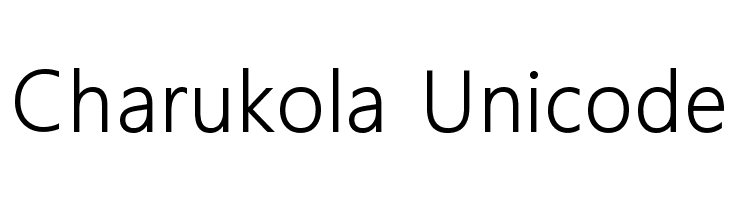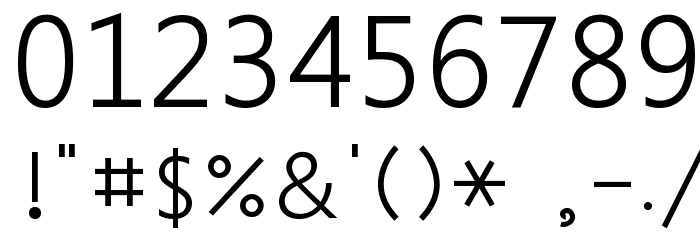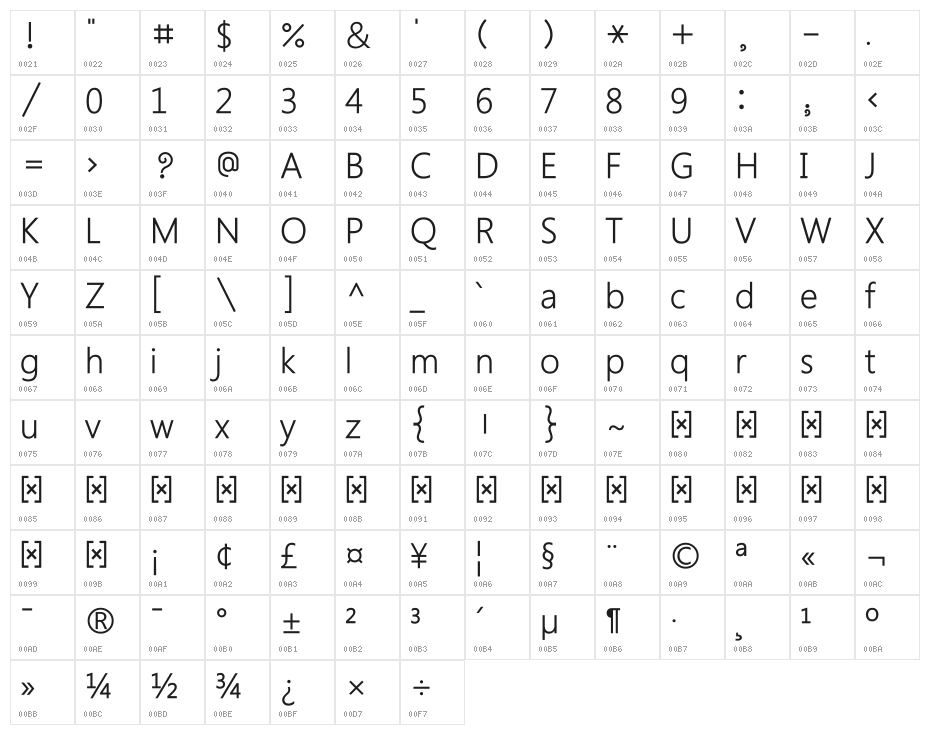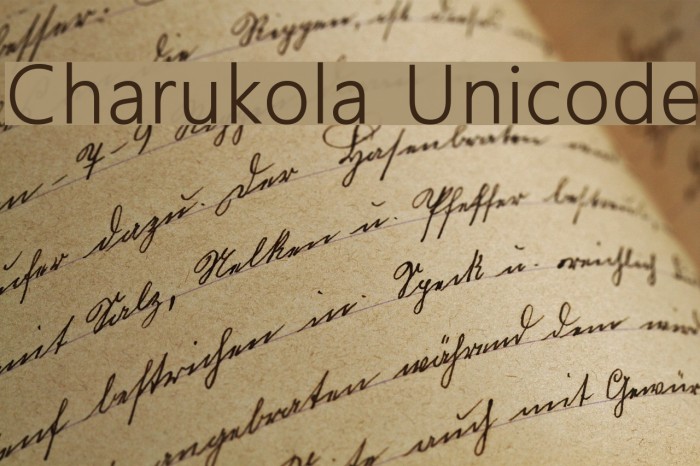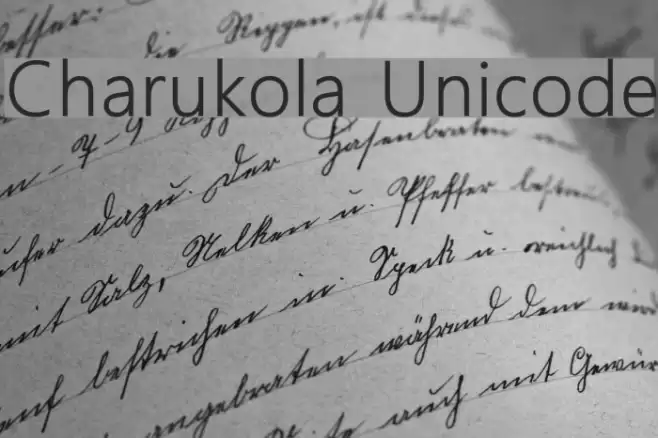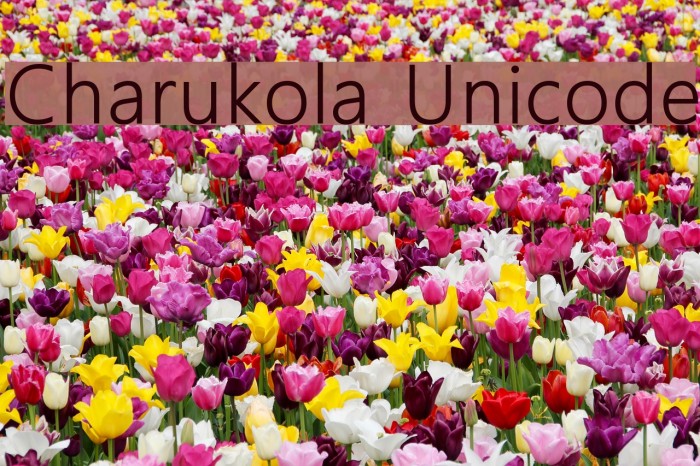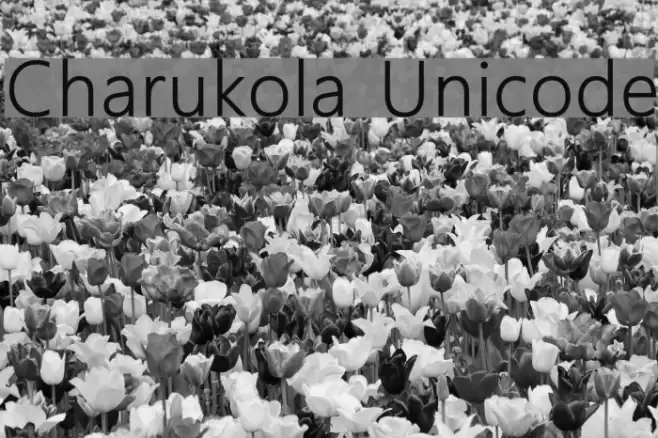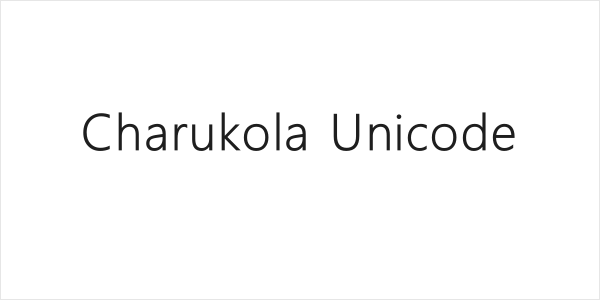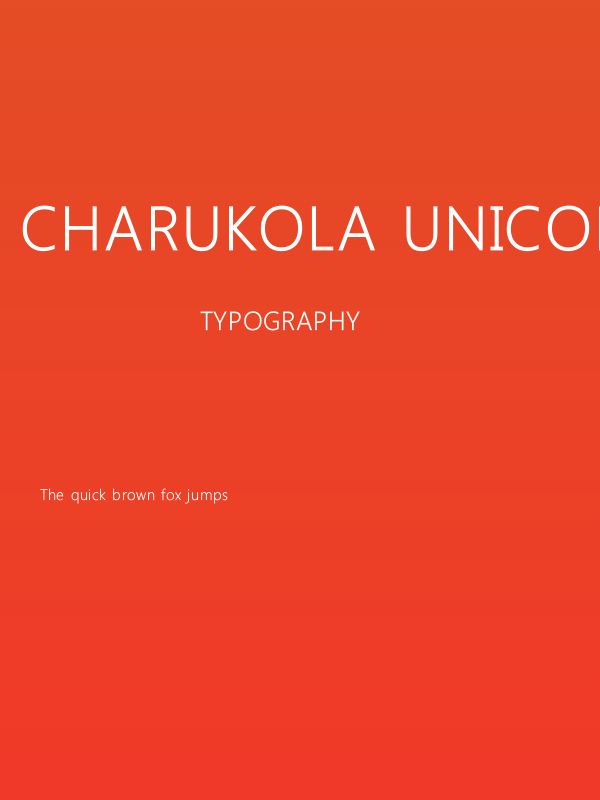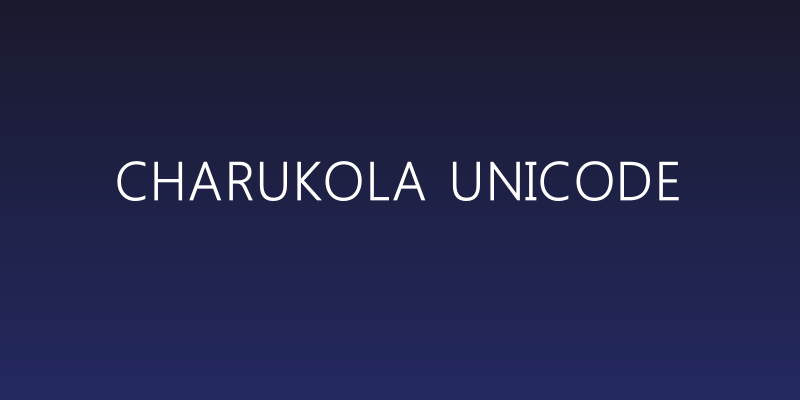
Charukola Unicode Font
Charukola Unicode Description
This font features a clean and modern sans-serif design, characterized by its simplicity and readability. The letters are evenly spaced with a consistent stroke width, providing a balanced and harmonious appearance. The uppercase characters are bold and assertive, while the lowercase letters maintain a friendly and approachable feel. The numerals are clear and distinct, making them easy to read at various sizes. Special characters are well-integrated, maintaining the overall aesthetic of the typeface. This font is versatile, suitable for both digital and print media, and can be used effectively in a variety of design contexts.